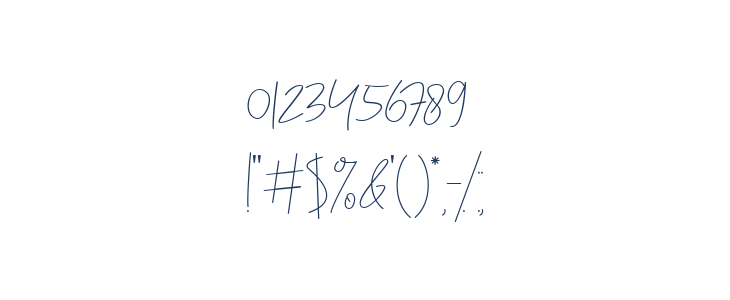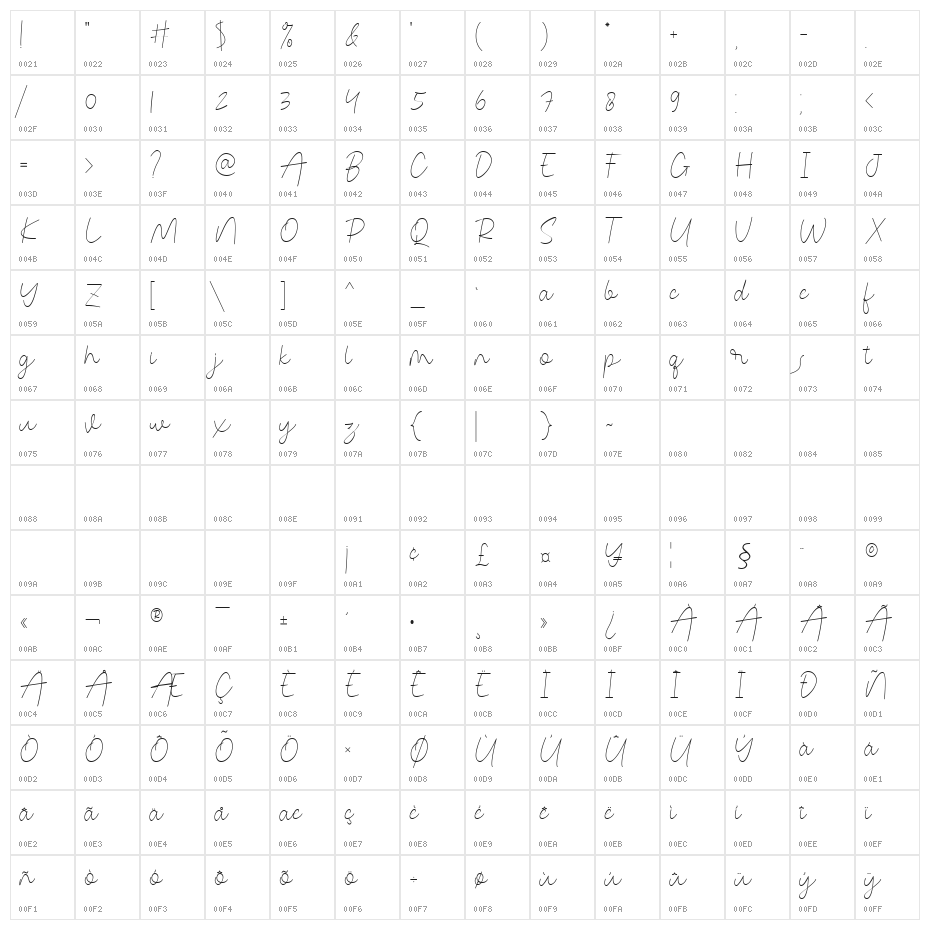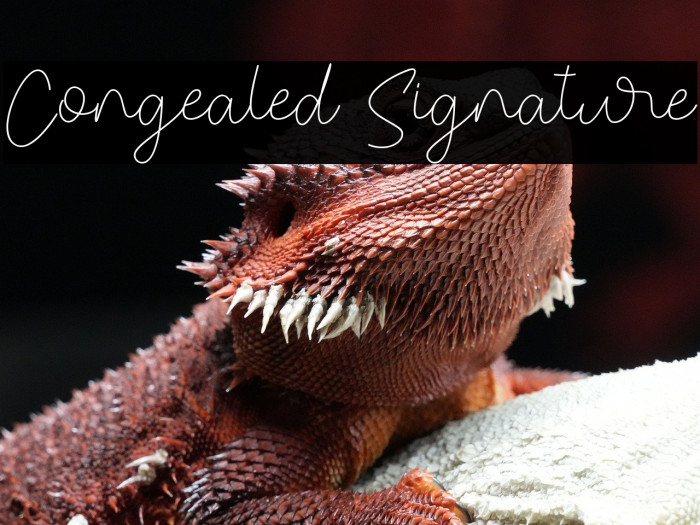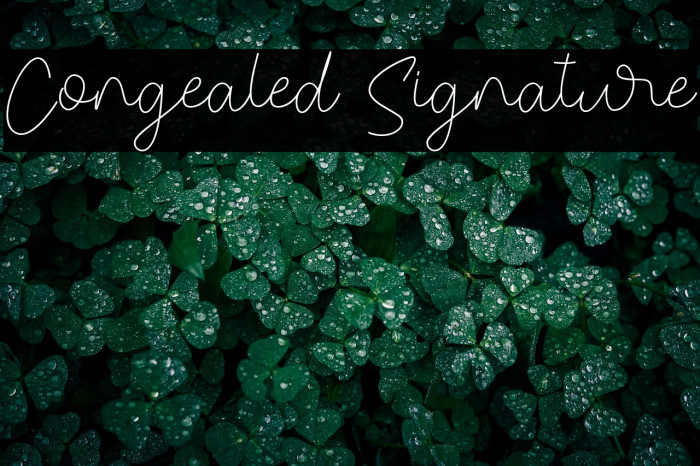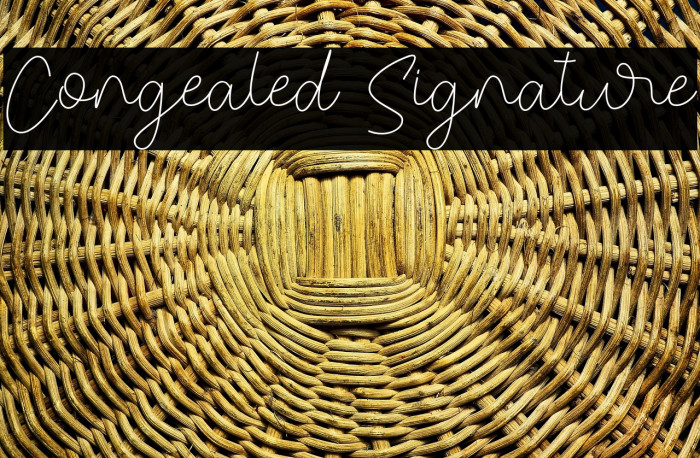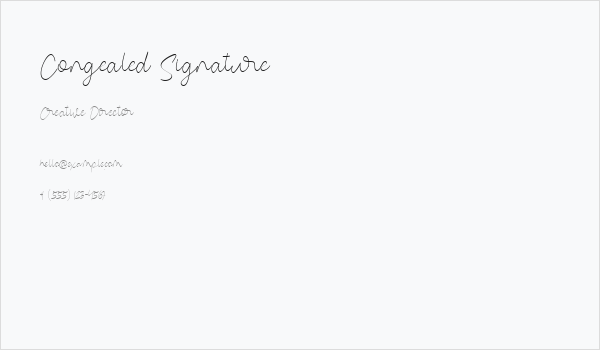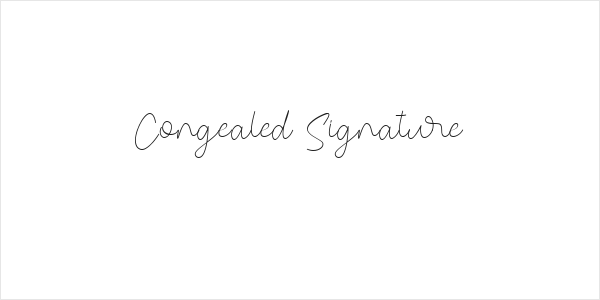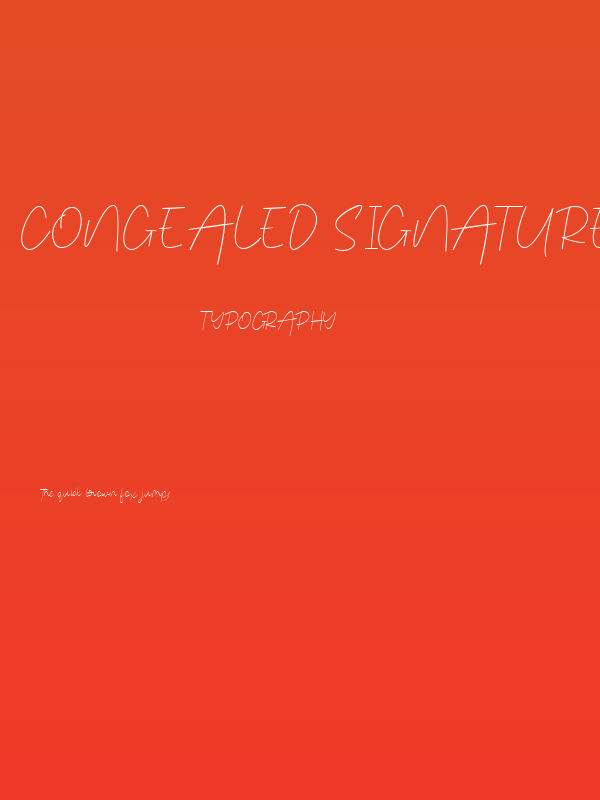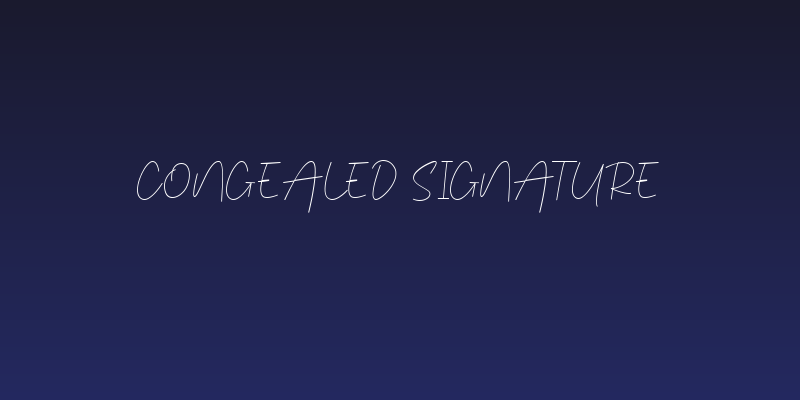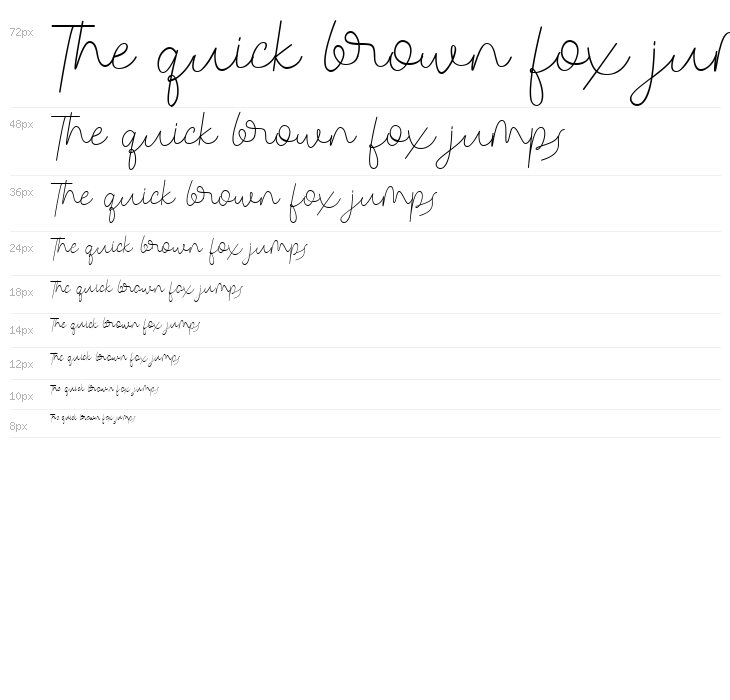
Congealed Signature Font
Congealed Signature Description
This font features a fluid, handwritten style that mimics the natural flow of cursive writing. The characters are elegantly elongated with a consistent stroke width, giving it a sophisticated and personal touch. The uppercase letters maintain a graceful height, while the lowercase letters are slightly more compact, enhancing readability. The numerals and special characters follow the same fluidity, making them blend seamlessly with the alphabet. This font is ideal for projects that require a personal, yet professional appearance.
| Use Case | Logos, Invitations, Personal Branding |
| Proposed Projects | Ideal for wedding invitations, personal branding, greeting cards, and artistic projects. |